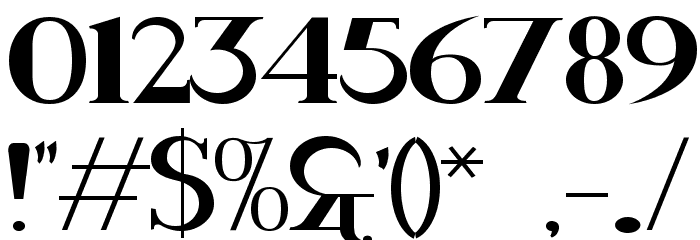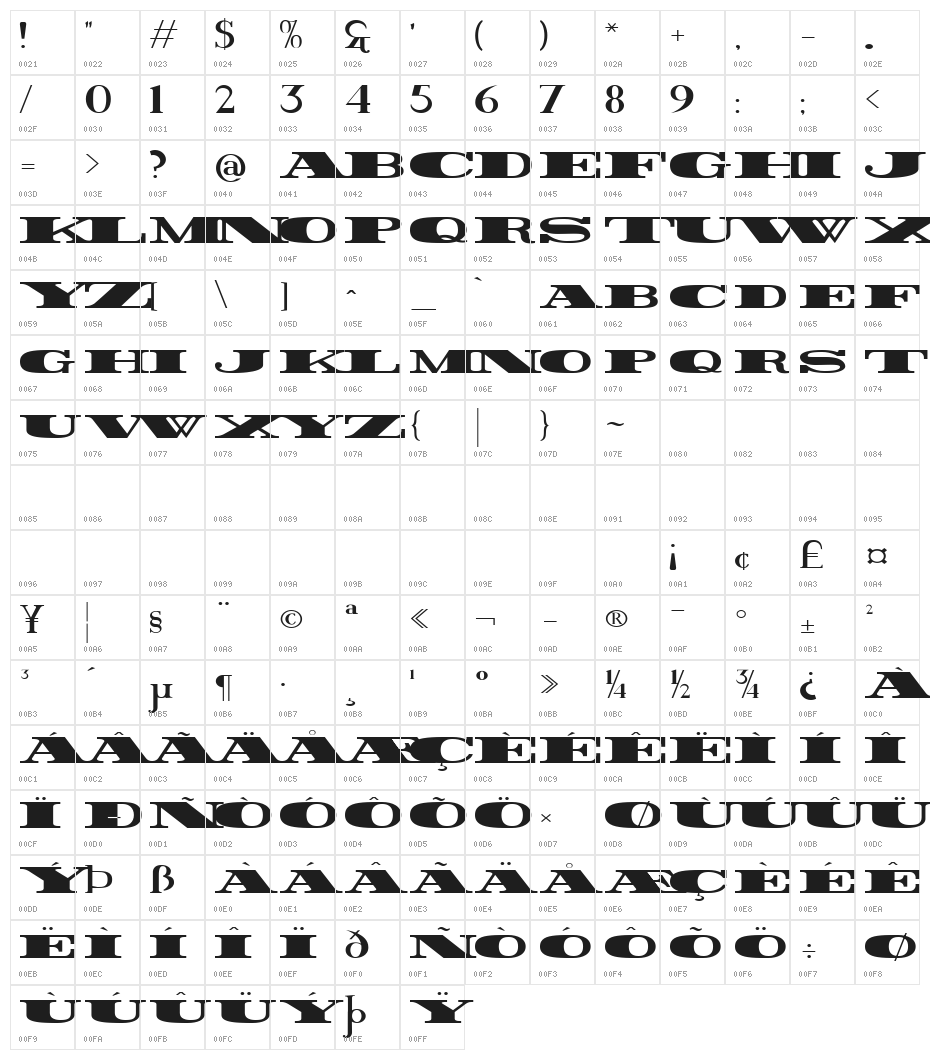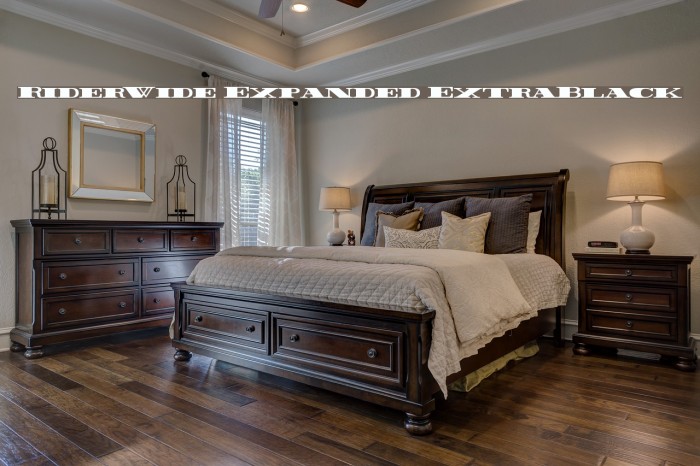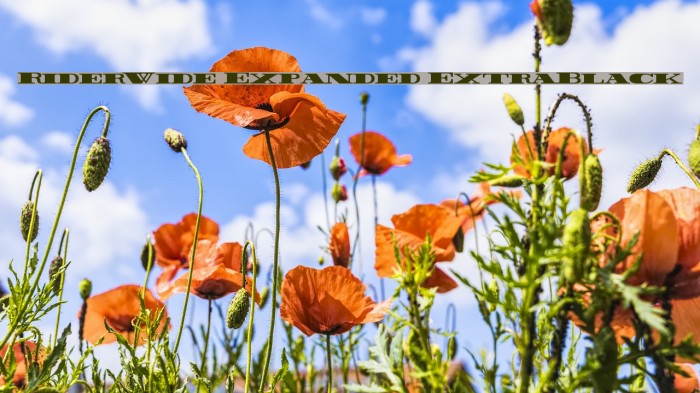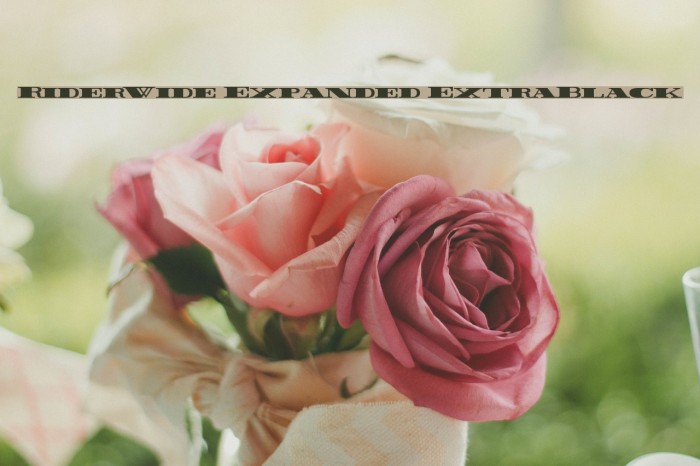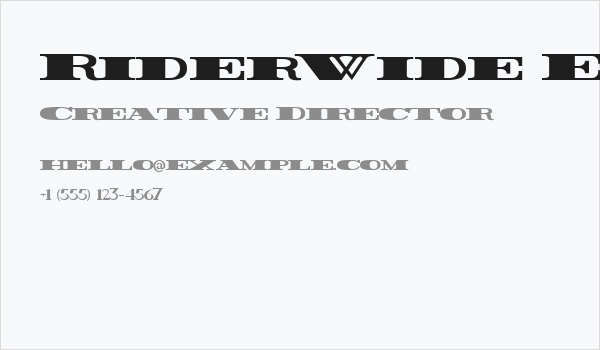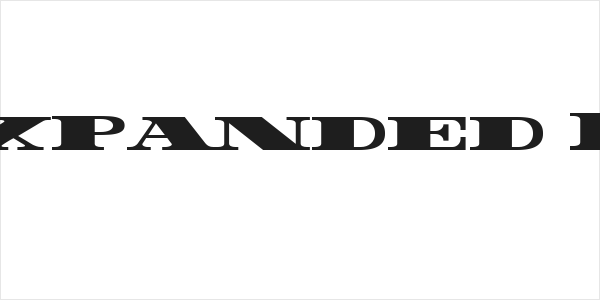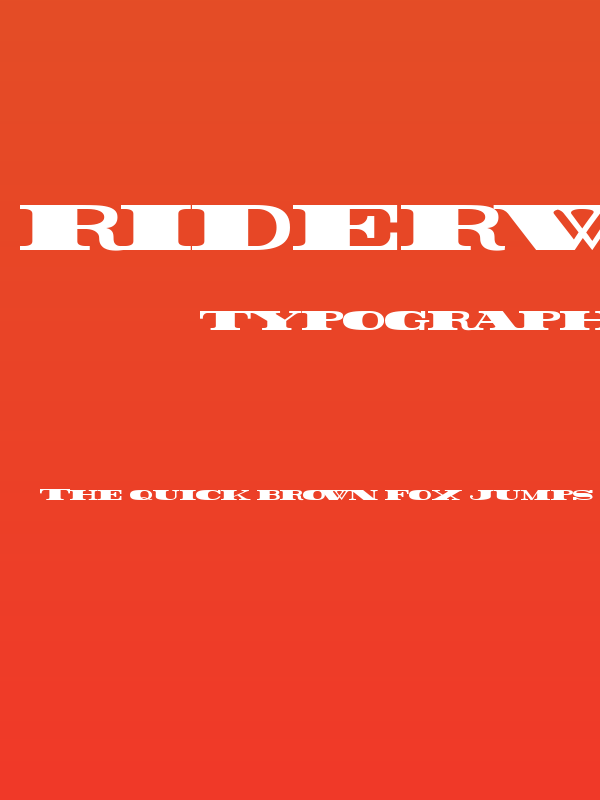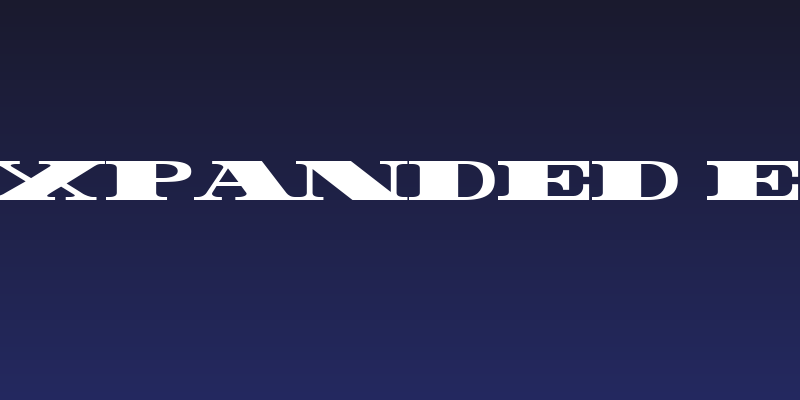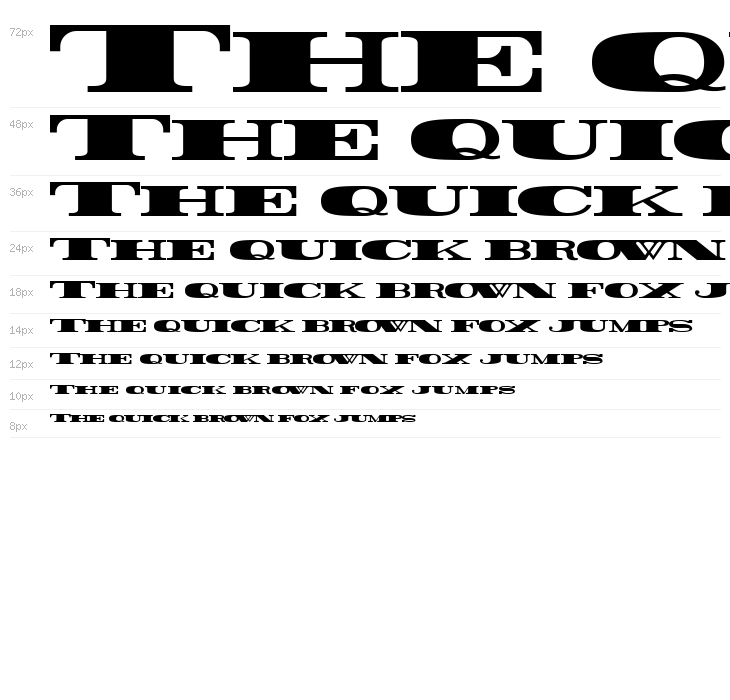
Rider Wide Expanded ExtraBlack Font
Rider Wide Expanded ExtraBlack Description
This font features a bold and striking design with wide, expanded letterforms that command attention. The extra black weight adds a dramatic flair, making it ideal for impactful headlines and statements. Each character is meticulously crafted with sharp serifs and a high contrast between thick and thin strokes, enhancing its readability and visual appeal. The uppercase and lowercase letters maintain a consistent style, while the numerals and special characters complement the overall aesthetic. Its unique design is perfect for projects that require a strong, authoritative presence.